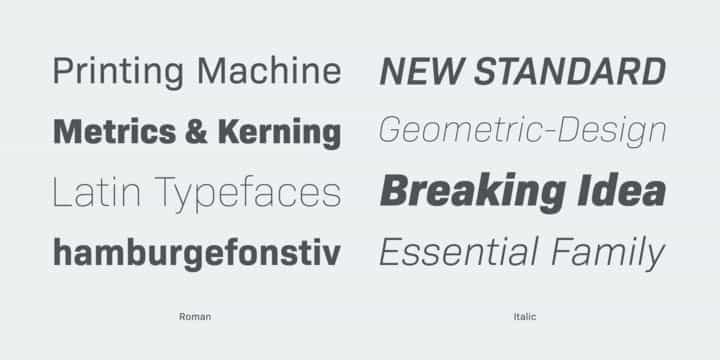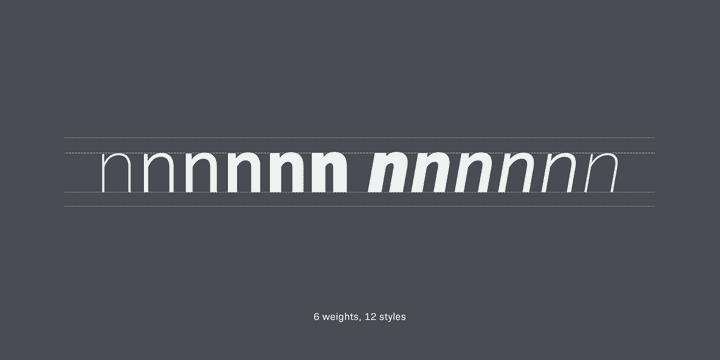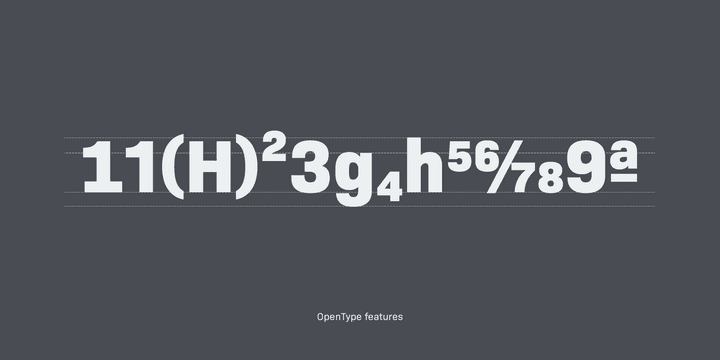
Bio Sans is a very solid sans-serif font created by Ryoichi Tsunekawa for text use, it has 6 weights from ExtraLight to ExtraBold with matching Italics.